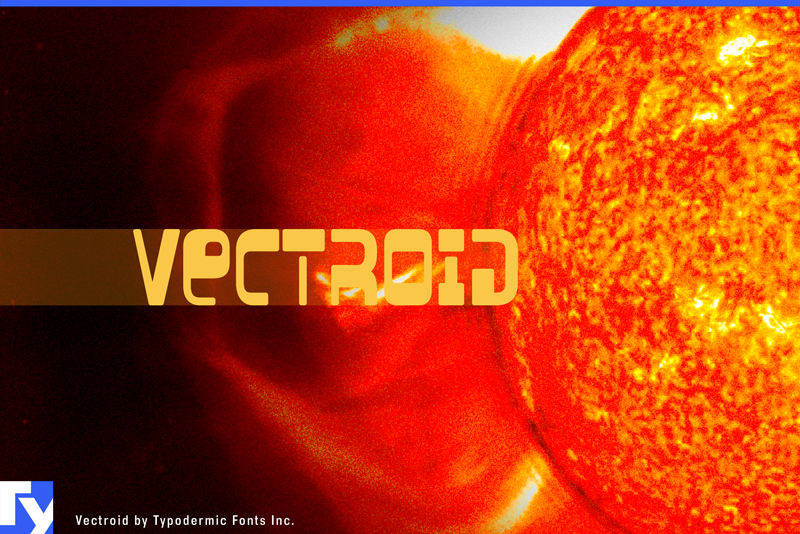
Font name: | Vectroid |
Vectroid is an unconventional display typeface inspired by industrial design. Its uncommon letterforms and smooth corners will lend your message a distinct mechanical taste and a sense of dependability. Most Latin-based European writing systems are supported, including the following languages. Afaan Oromo, Afar, Afrikaans, Albanian, Alsatian, Aromanian, Aymara, Bashkir (Latin), Basque, Belarusian (Latin), Bemba, Bikol, Bosnian, Breton, Cape Verdean, Creole, Catalan, Cebuano, Chamorro, Chavacano, Chichewa, Crimean Tatar (Latin), Croatian, Czech, Danish, Dawan, Dholuo, Dutch, English, Estonian, Faroese, Fijian, Filipino, Finnish, French, Frisian, Friulian, Gagauz (Latin), Galician, Ganda, Genoese, German, Greenlandic, Guadeloupean Creole, Haitian Creole, Hawaiian, Hiligaynon, Hungarian, Icelandic, Ilocano, Indonesian, Irish, Italian, Jamaican, Kaqchikel, Karakalpak (Latin), Kashubian, Kikongo, Kinyarwanda, Kirundi, Kurdish (Latin), Latvian, Lithuanian, Lombard, Low Saxon, Luxembourgish, Maasai, Makhuwa, Malay, Maltese, Māori, Moldovan, Montenegrin, Ndebele, Neapolitan, Norwegian, Novial, Occitan, Ossetian (Latin), Papiamento, Piedmontese, Polish, Portuguese, Quechua, Rarotongan, Romanian, Romansh, Sami, Sango, Saramaccan, Sardinian, Scottish Gaelic, Serbian (Latin), Shona, Sicilian, Silesian, Slovak, Slovenian, Somali, Sorbian, Sotho, Spanish, Swahili, Swazi, Swedish, Tagalog, Tahitian, Tetum, Tongan, Tshiluba, Tsonga, Tswana, Tumbuka, Turkish, Turkmen (Latin), Tuvaluan, Uzbek (Latin), Venetian, Vepsian, V�ro, Walloon, Waray-Waray, Wayuu, Welsh, Wolof, Xhosa, Yapese, Zapotec Zulu and Zuni. The fonts included in this archive are released under a no rights reserved Creative Commons Zero license. Please do not ask permission to do anything with these fonts. Whatever you want to do with this font, the answer will be yes. Please read about the CC0 Public Domain license before contacting me. To the extent possible under law, Raymond Larabie has waived all copyright and related or neighboring rights to the fonts in this archive. This work is published from: Japan. |